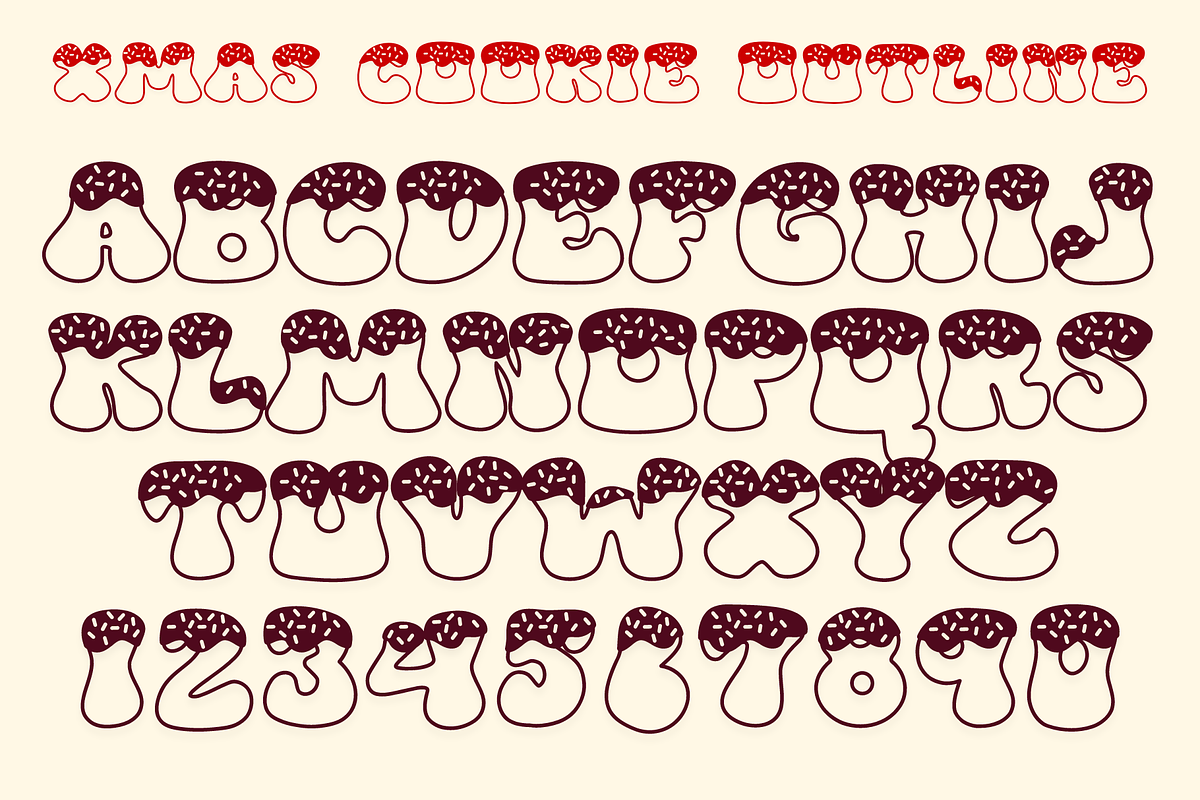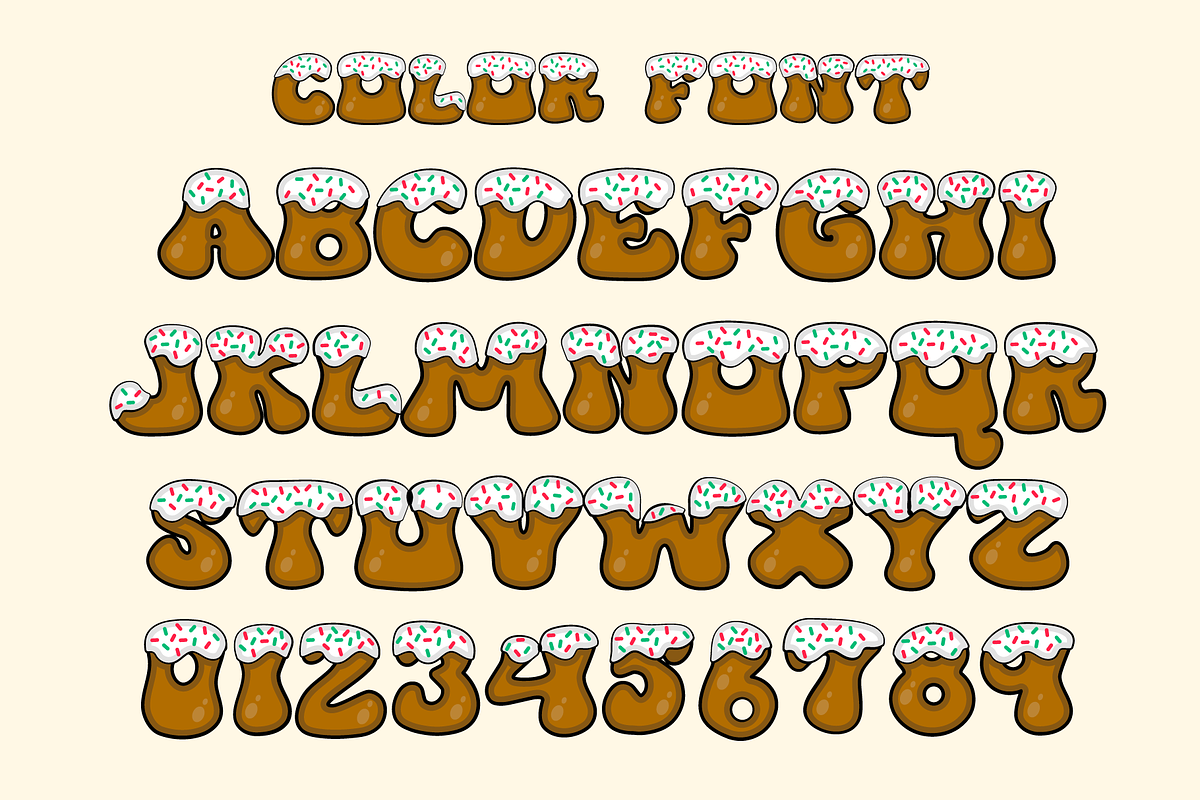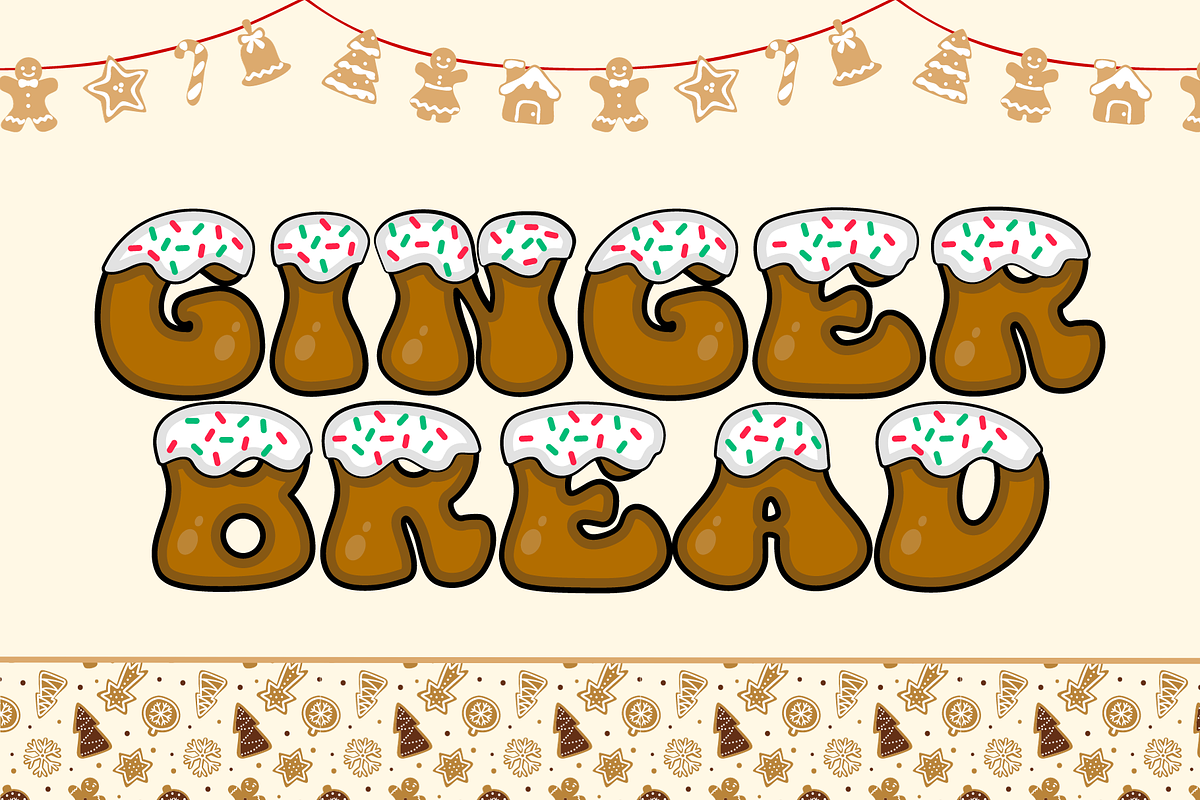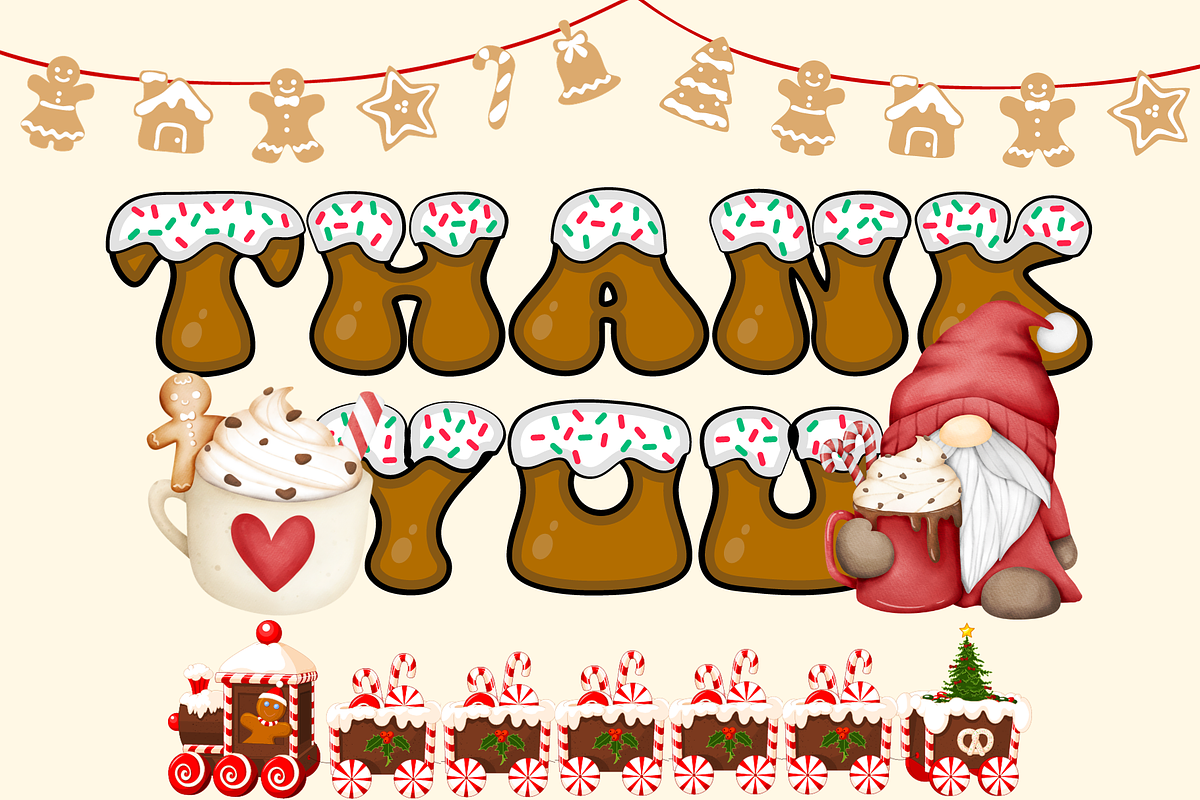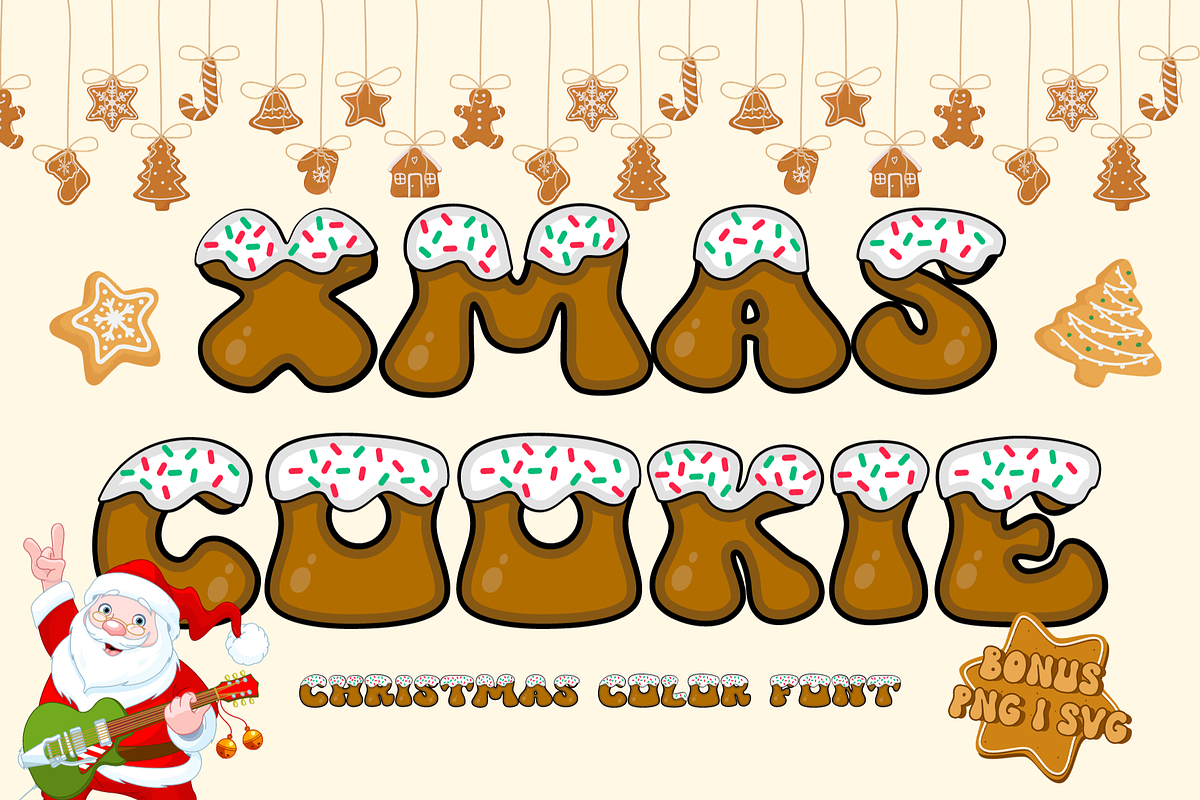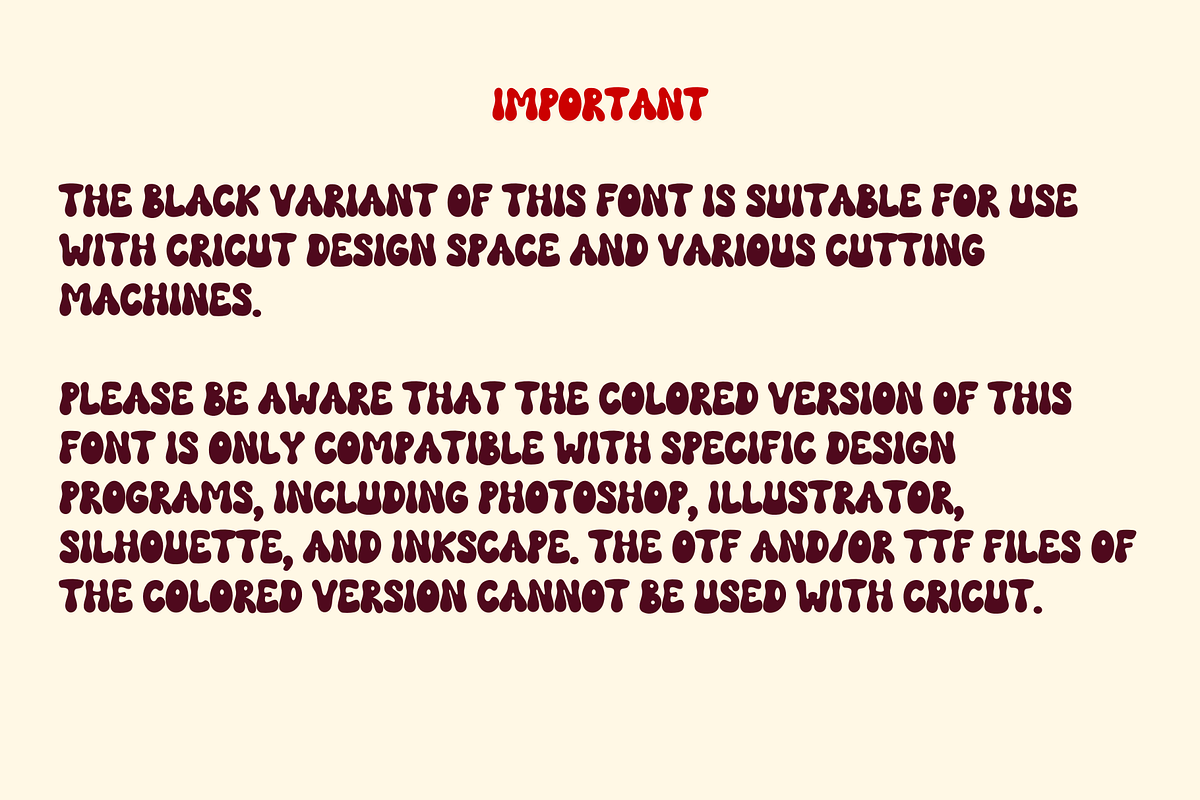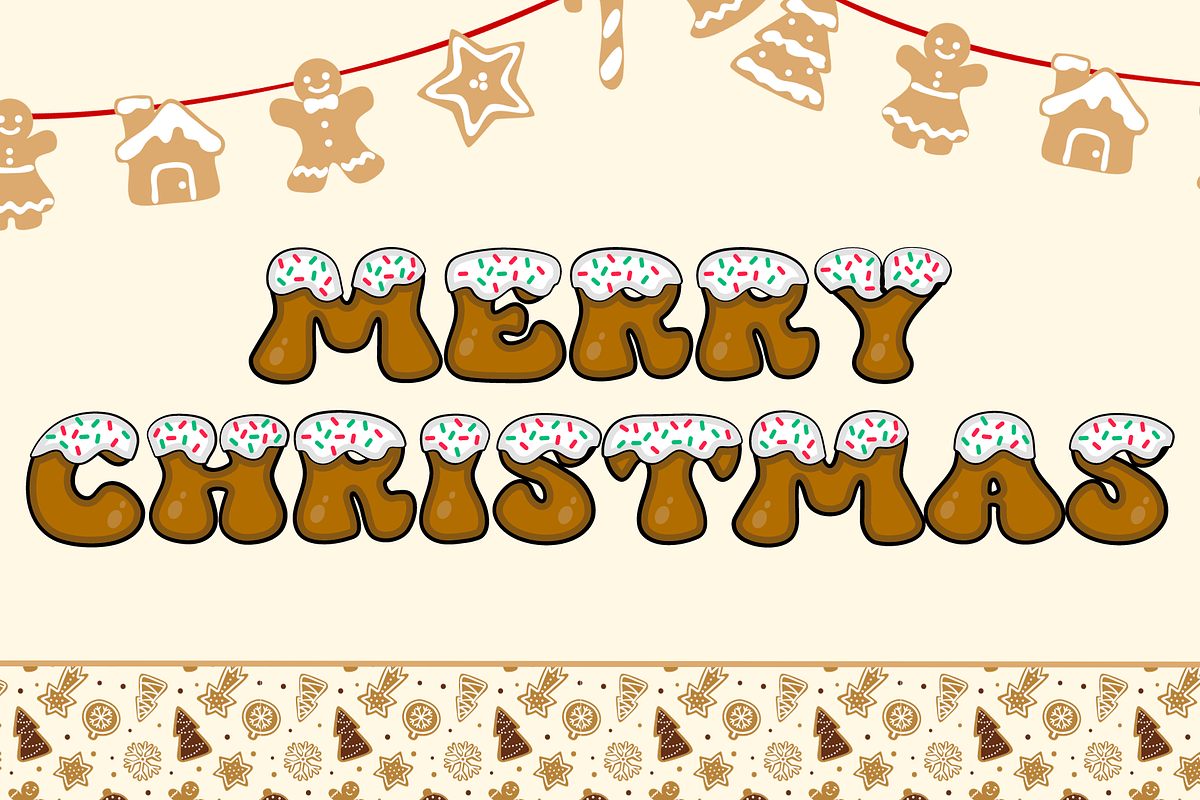
Xmas Cookie is a Color font
Xmas Cookie is a Color font for Christmas. It embodies playfulness and authenticity and is the perfect choice for all your favorite projects, or even for blog posts, logos, branding, ads, invitations, greeting cards, planners, photo albums, decorations, and much more. Add it to any of your designs, and enjoy the results!